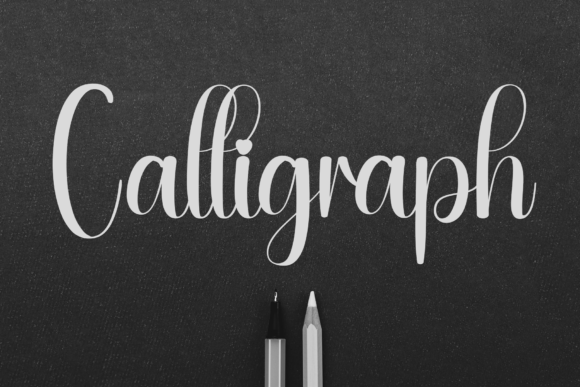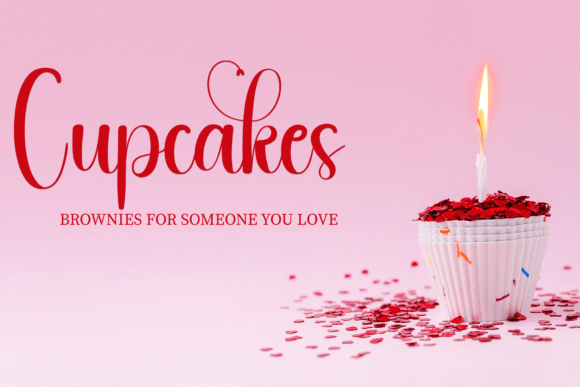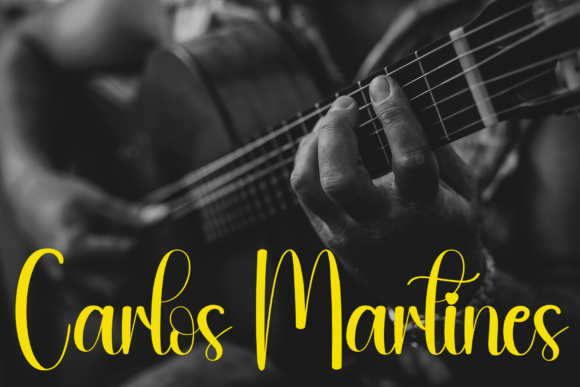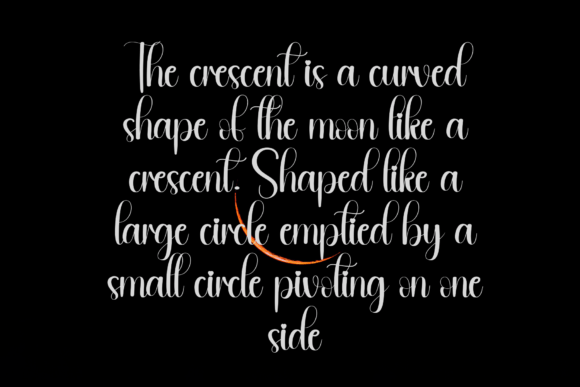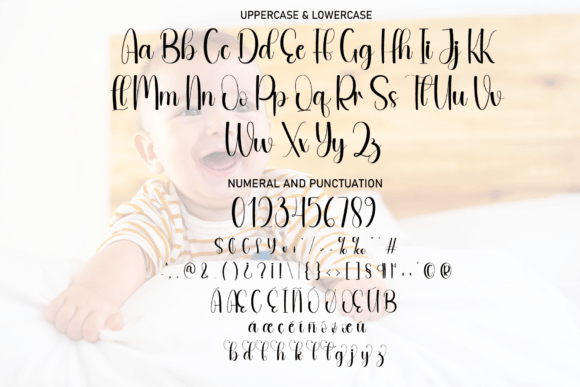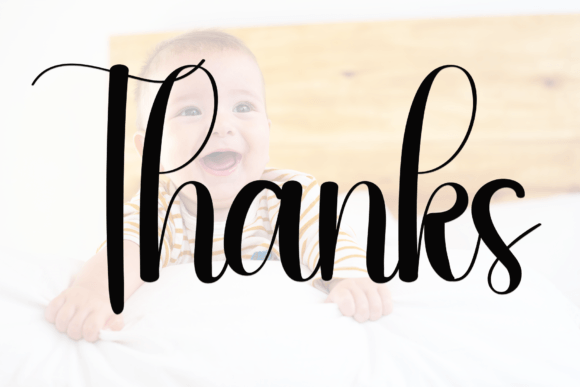
The Perfect Script for a Special Moment
Who hasn’t been touched by the joy of a new baby or a wedding proposal? For many of us, these moments are the most precious in our lives. As we start to plan the celebrations and share the news with loved ones, we often find ourselves searching for the perfect way to express our emotions. That’s where the right font comes in – a font that can convey the sweetness and love we feel.
Enter the Cute Baby Font, a charming handwritten font that’s designed to add a touch of warmth and friendliness to your designs. With its fresh and neat style, it’s perfect for wedding invitations, cards, and other special occasions. As a designer, you’ll appreciate the versatility of this font and the ease with which it can elevate your projects. Whether you’re creating a custom invitation or a heartfelt card, the Cute Baby Font is sure to make it extra special.
Cute Baby Font Key Features
- Character Set: The font includes a comprehensive set of characters, including uppercase and lowercase letters, numbers, punctuation marks, and special characters, as well as a range of cute baby-related symbols and icons.
- Unique Characteristics: The font features a playful, cursive design with rounded edges and a soft, endearing quality, making it perfect for use in baby-related products, such as nursery decor, baby clothing, and children’s books.
- Style Options: Cute Baby Font includes a range of style options, including bold, italic, and outline styles, allowing users to customize the font to suit their specific needs.
Cute Baby Font Review
Overall, I have mixed feelings about the “Cute Baby Font”. Here’s what I think works well: ✨ It’s perfect for creating a playful and endearing atmosphere in children’s books, nursery decorations, or even digital products targeting young parents. The font’s rounded edges and cutesy design elements make it an instant hit with those looking for a lighthearted feel. Additionally, the font’s wide range of sizes and styles provides a lot of flexibility when it comes to designing.
On the other hand, there are some limitations to consider: ⚠️ The font may be too cutesy for more serious or professional designs. Its playful vibe can be overwhelming if used in large quantities or without proper balance. Moreover, some of the characters may not be optimized for certain languages, which can lead to issues with text alignment and spacing.
- Limited language support for certain characters
- May be too cutesy for serious designs
- Requires careful balancing to avoid overwhelming the design
Overall, I would recommend the “Cute Baby Font” for projects that require a playful and youthful feel. However, it’s essential to use it judiciously and balance it with more serious elements to avoid overwhelming the design.
The Cute Baby Font is ideal for creating child-friendly designs, such as:
- Baby product packaging
- Children’s party invitations
To get the most out of the Cute Baby Font, experiment with different font sizes, colors, and styles to create a unique and eye-catching design.